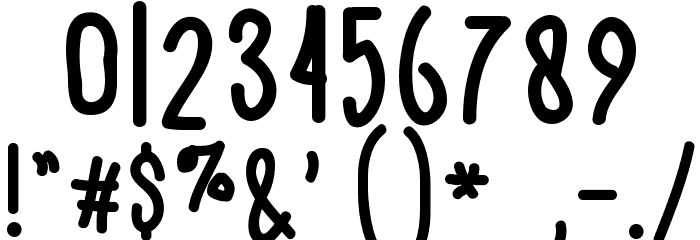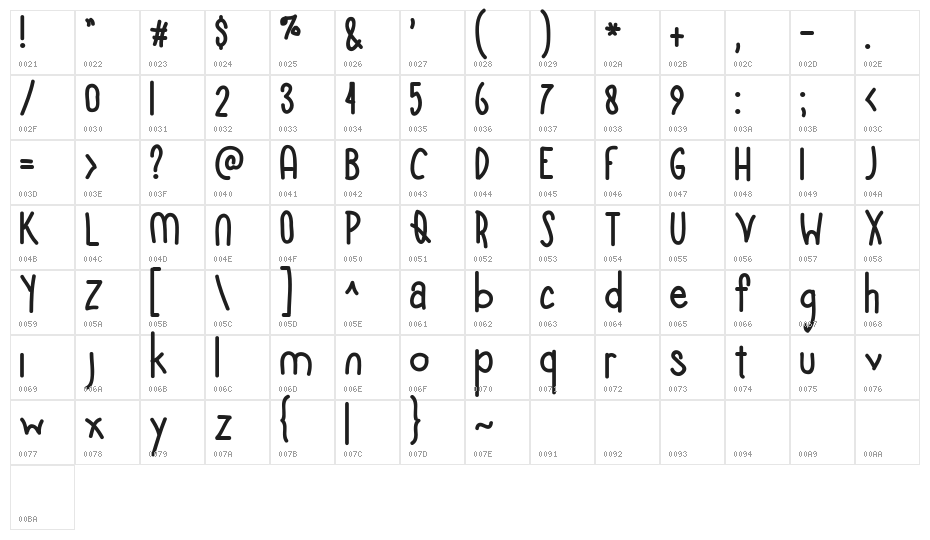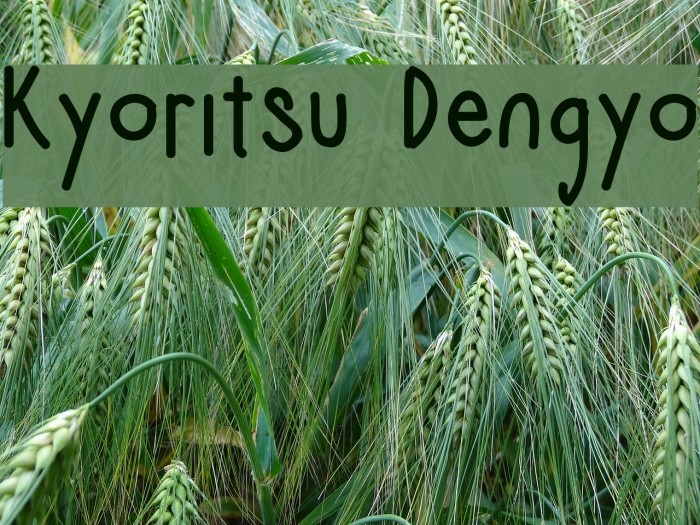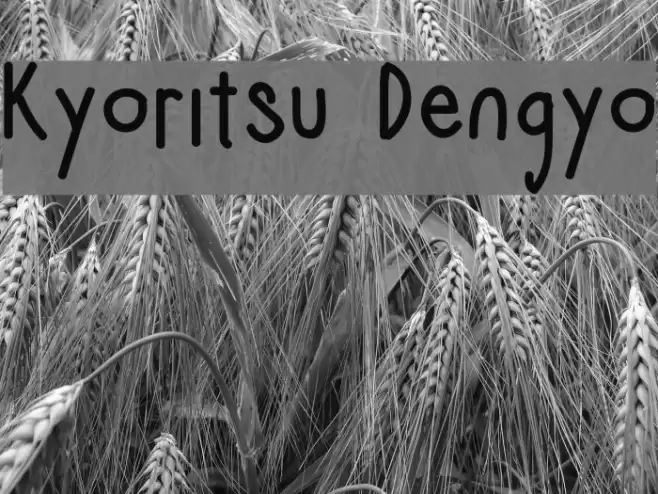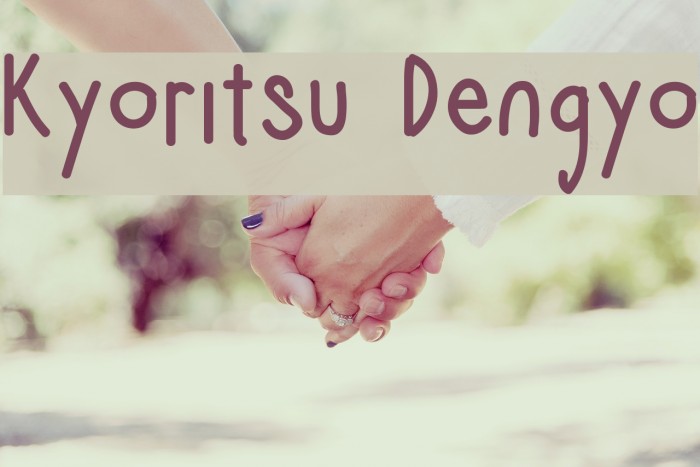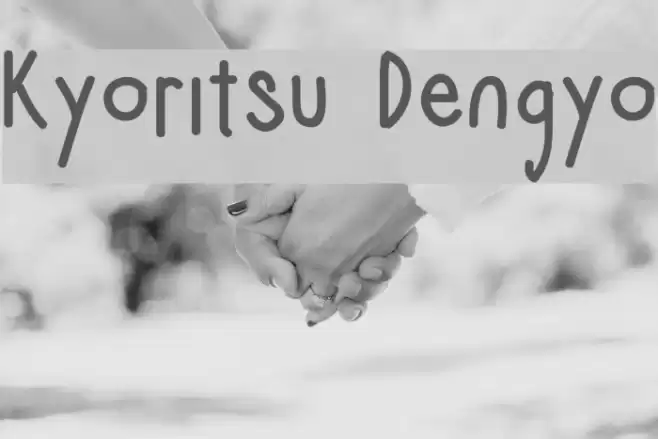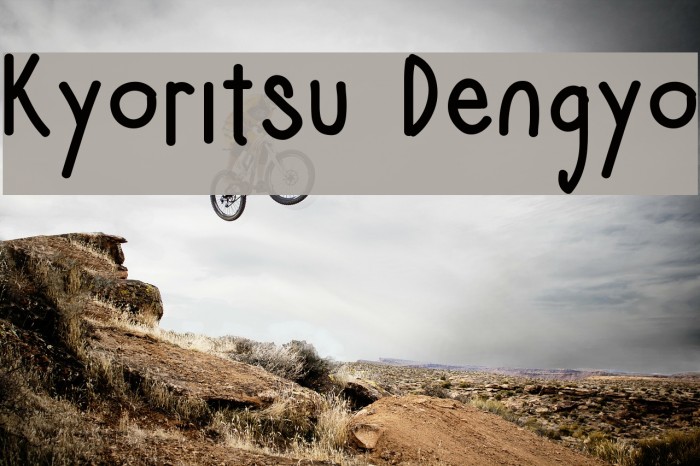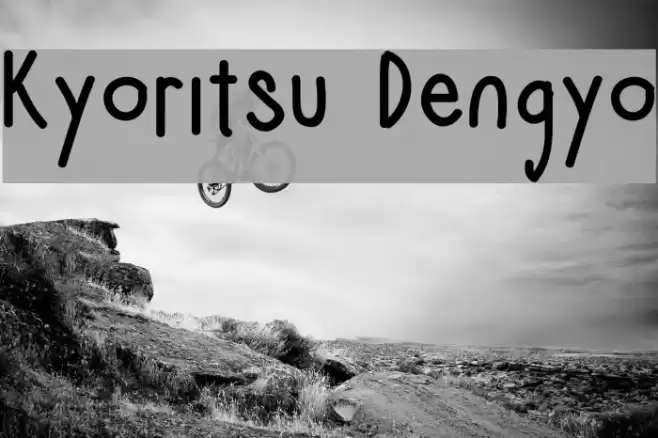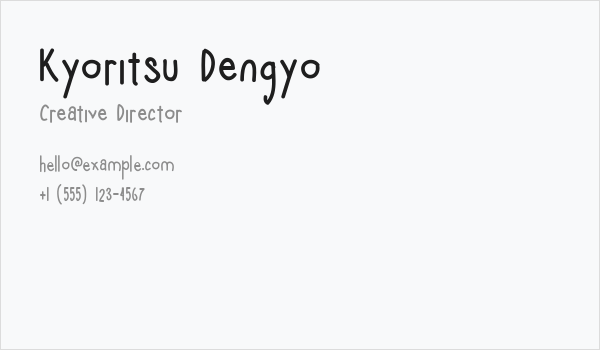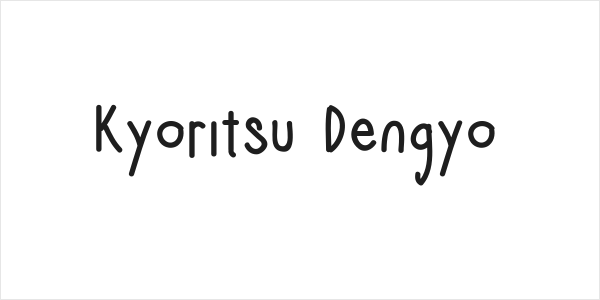
Kyoritsu Dengyo Font
Kyoritsu Dengyo Description
This playful and rounded font features a hand-drawn aesthetic with a casual, friendly vibe. The characters are uniformly bold with a consistent stroke width, giving it a cohesive look. The uppercase and lowercase letters maintain a similar style, with rounded edges and a slightly whimsical touch. The numerals and special characters follow the same design principles, ensuring a harmonious appearance across all elements. This font's informal style makes it ideal for projects that require a personal or approachable feel.